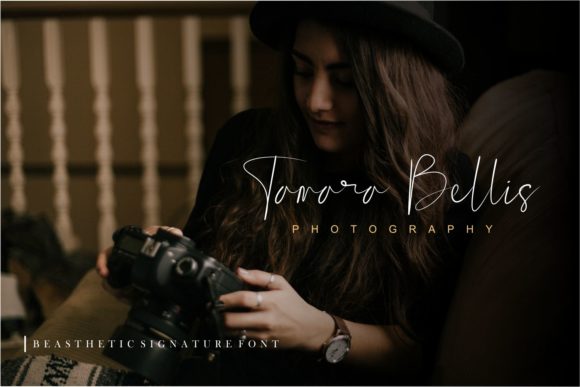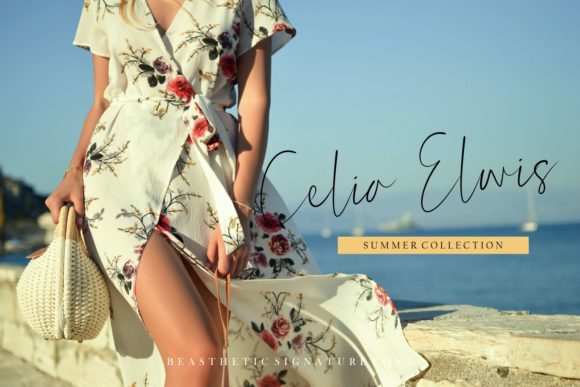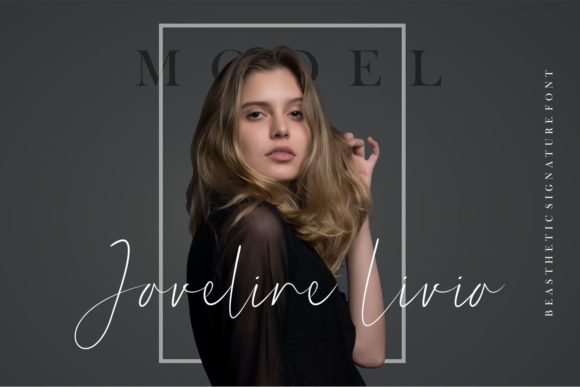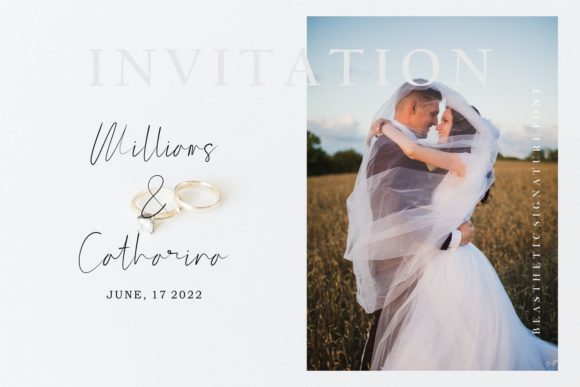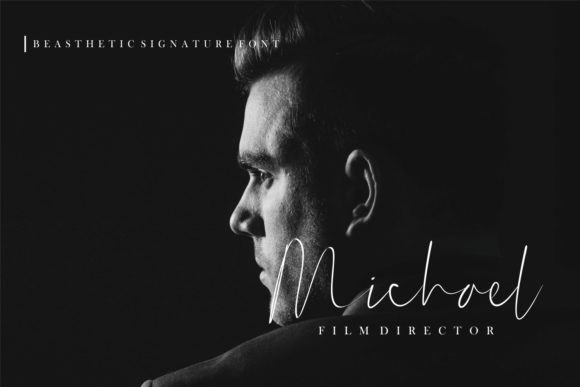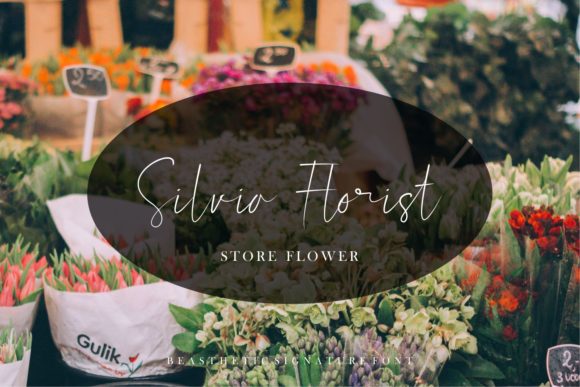
Unleash Your Creativity with Beasthetic Font: The Ultimate Guide
Are you a designer, crafty enthusiast, or simply someone who appreciates beautiful typography? Look no further than the Beasthetic Font, a stunning handwritten font that’s sure to capture your heart. In this comprehensive article, we’ll dive into the world of Beasthetic, exploring its unique features, and how it can elevate your projects to new heights.
What is Beasthetic Font?
Beasthetic is an exquisite handwritten font, masterfully designed to become a true favorite among designers and crafters. This gorgeous font seamlessly blends classy calligraphic influences with a contemporary and fresh feel, making it perfect for a wide range of creative projects.
Key Features of Beasthetic Font
- Handwritten with love: Beasthetic is a carefully crafted handwritten font, infused with a personal touch that’s sure to make your projects stand out.
- Classy calligraphic influences: The font’s elegant and refined aesthetic is inspired by traditional calligraphy, giving it a sophisticated and luxurious feel.
- Contemporary and fresh: Despite its classic roots, Beasthetic has a modern twist that makes it perfect for contemporary designs and projects.
- Versatile: Whether you’re working on a logo, branding project, social media graphics, or crafty endeavors, Beasthetic is the perfect companion.
Why Choose Beasthetic Font?
So, what sets Beasthetic apart from other fonts? Here are just a few reasons why designers and crafters are falling in love with this stunning font:
- Elegance and sophistication: Beasthetic adds a touch of luxury and refinement to any project, making it perfect for high-end branding, packaging, and marketing materials.
- Emotional connection: The font’s handwritten nature creates an emotional connection with your audience, making your message more relatable and engaging.
- Flexibility: Beasthetic is suitable for a wide range of projects, from digital designs to print materials, and can be used for both personal and commercial purposes.
How to Use Beasthetic Font in Your Projects
Now that you’re smitten with Beasthetic, let’s explore some creative ways to incorporate it into your projects:
- Logo design: Create a stunning logo that showcases your brand’s personality and style with Beasthetic.
- Social media graphics: Elevate your social media presence with eye-catching graphics, quotes, and posts featuring Beasthetic.
- Branding and packaging: Add a touch of elegance to your branding and packaging materials, such as business cards, brochures, and product labels.
- Crafting and DIY projects: Use Beasthetic to add a personal touch to your crafty endeavors, such as handmade cards, invitations, and scrapbooking.
Tips and Tricks for Working with Beasthetic Font
To get the most out of Beasthetic, here are some expert tips and tricks:
- Experiment with colors: Beasthetic looks stunning in a variety of colors, so don’t be afraid to experiment and find the perfect hue for your project.
- Mix and match: Combine Beasthetic with other fonts to create a unique and visually appealing typography.
- Pay attention to spacing: Make sure to adjust the spacing between letters and words to ensure your text is easy to read and visually appealing.
In conclusion, Beasthetic Font is a true gem that deserves to be in every designer’s and crafter’s toolkit. Its unique blend of classy calligraphic influences and contemporary freshness makes it perfect for a wide range of creative projects. Whether you’re looking to add a touch of elegance to your branding, create stunning social media graphics, or simply add a personal touch to your crafting projects, Beasthetic is the perfect choice. So, fall in love with Beasthetic and bring your projects to the highest levels!